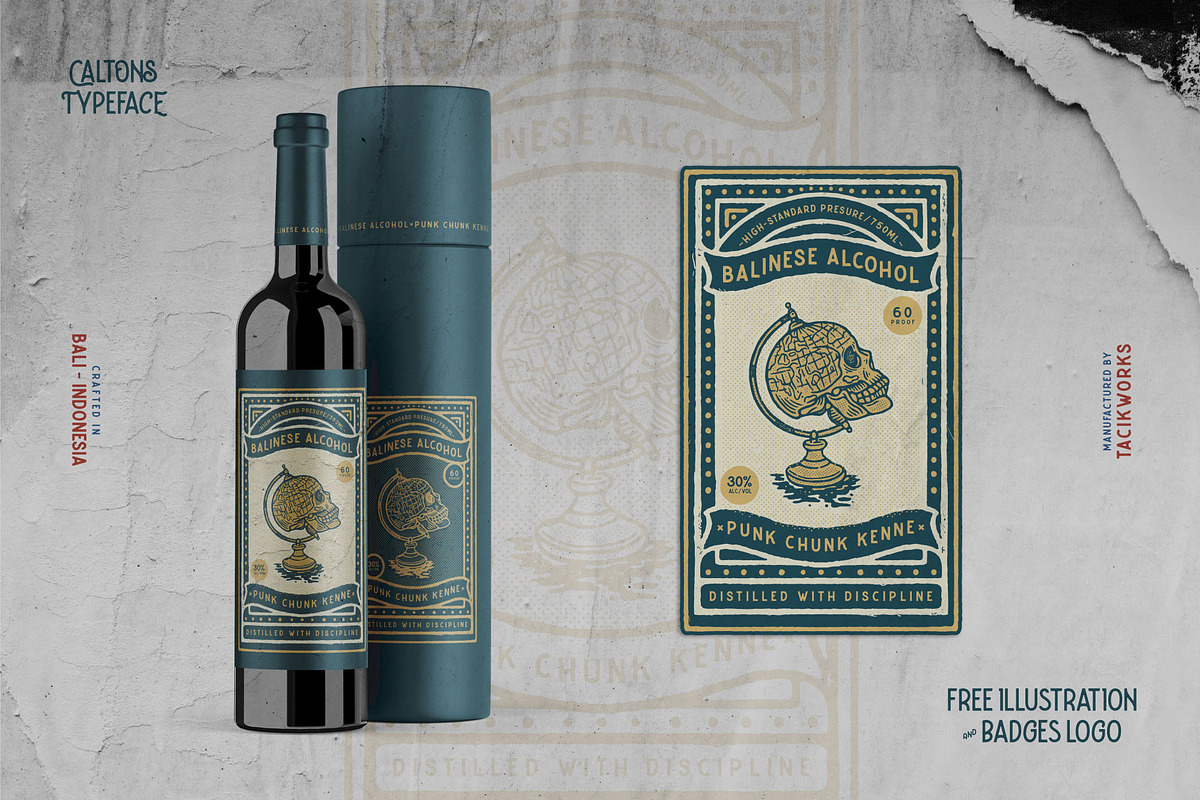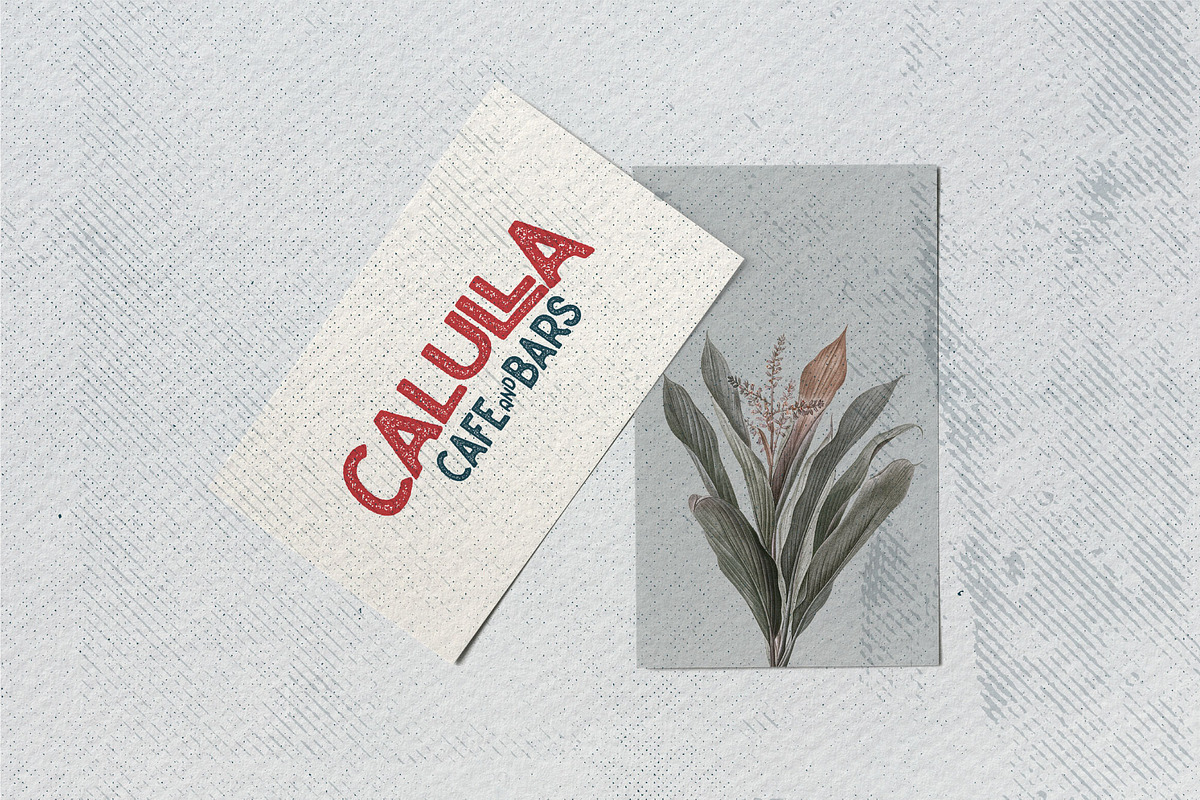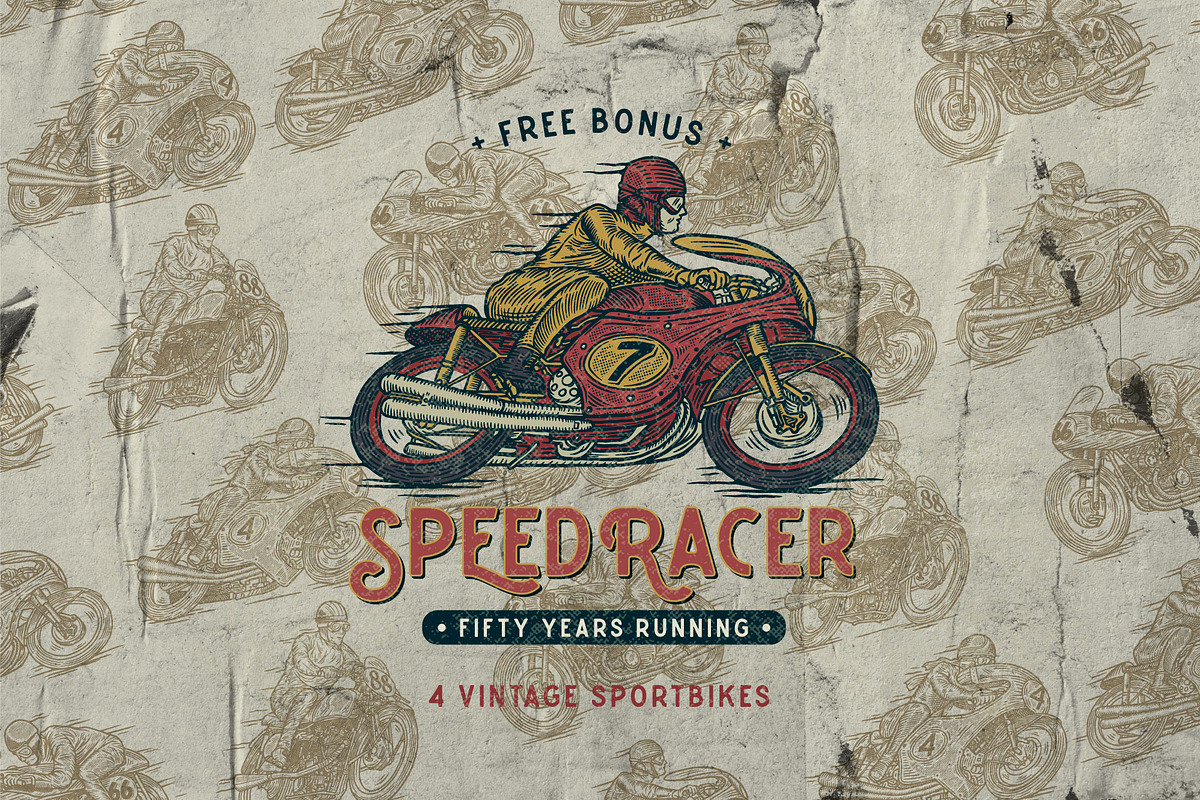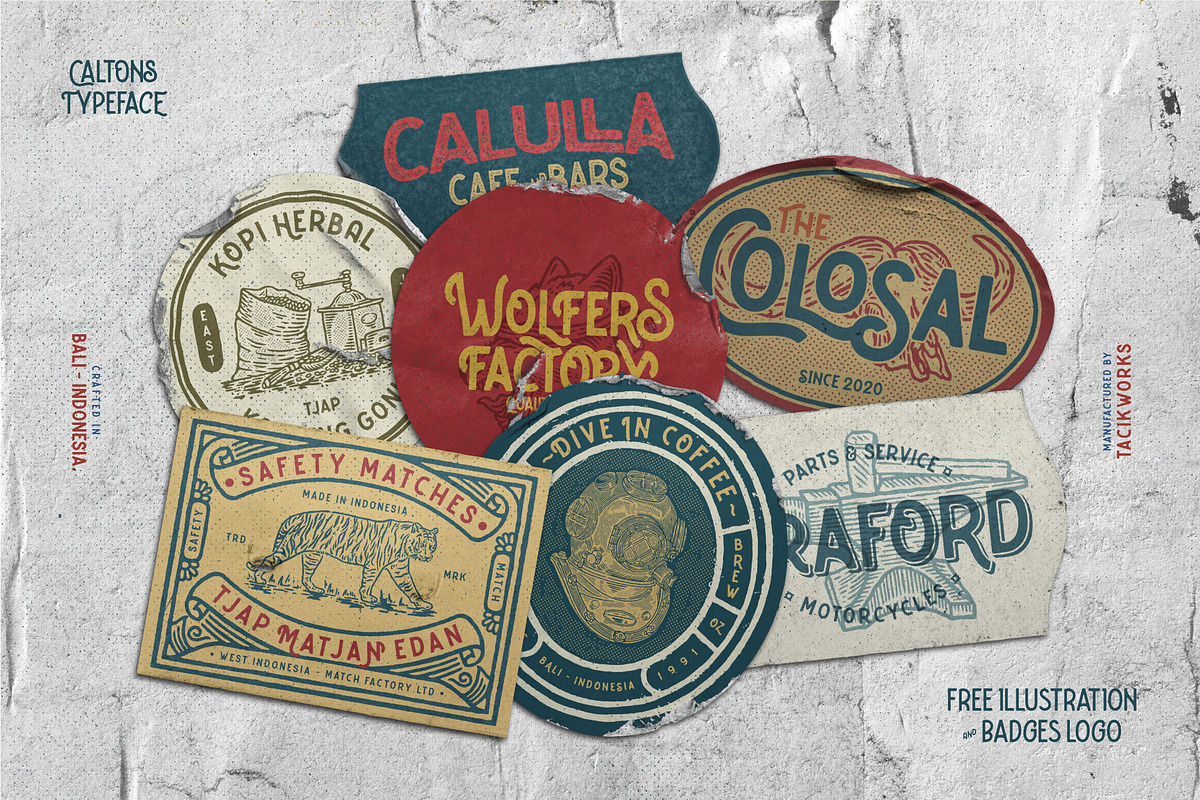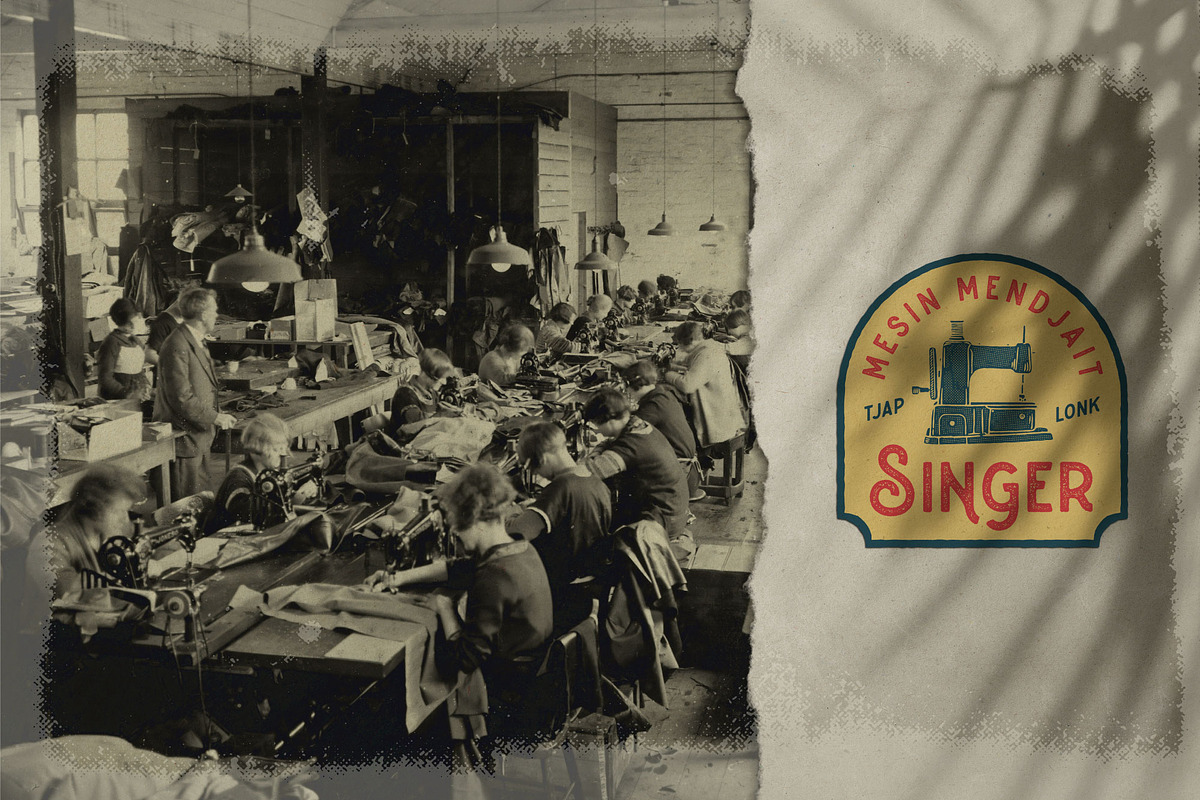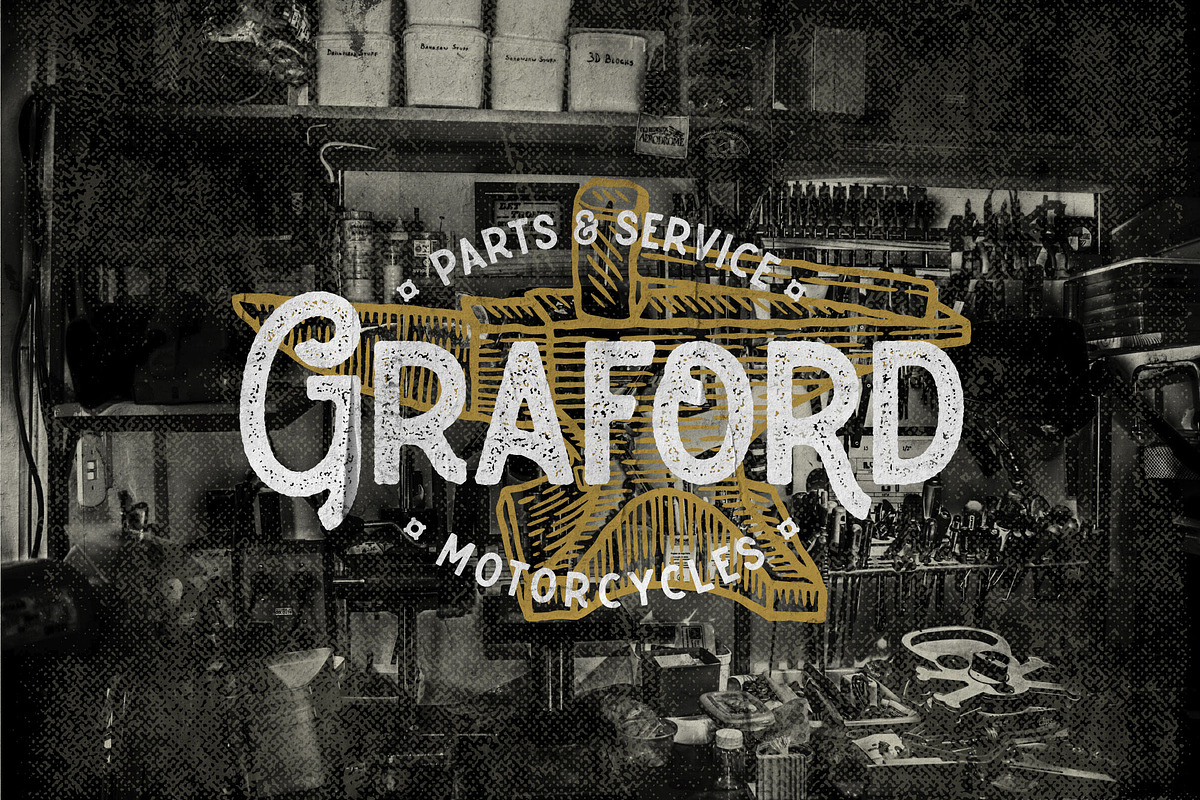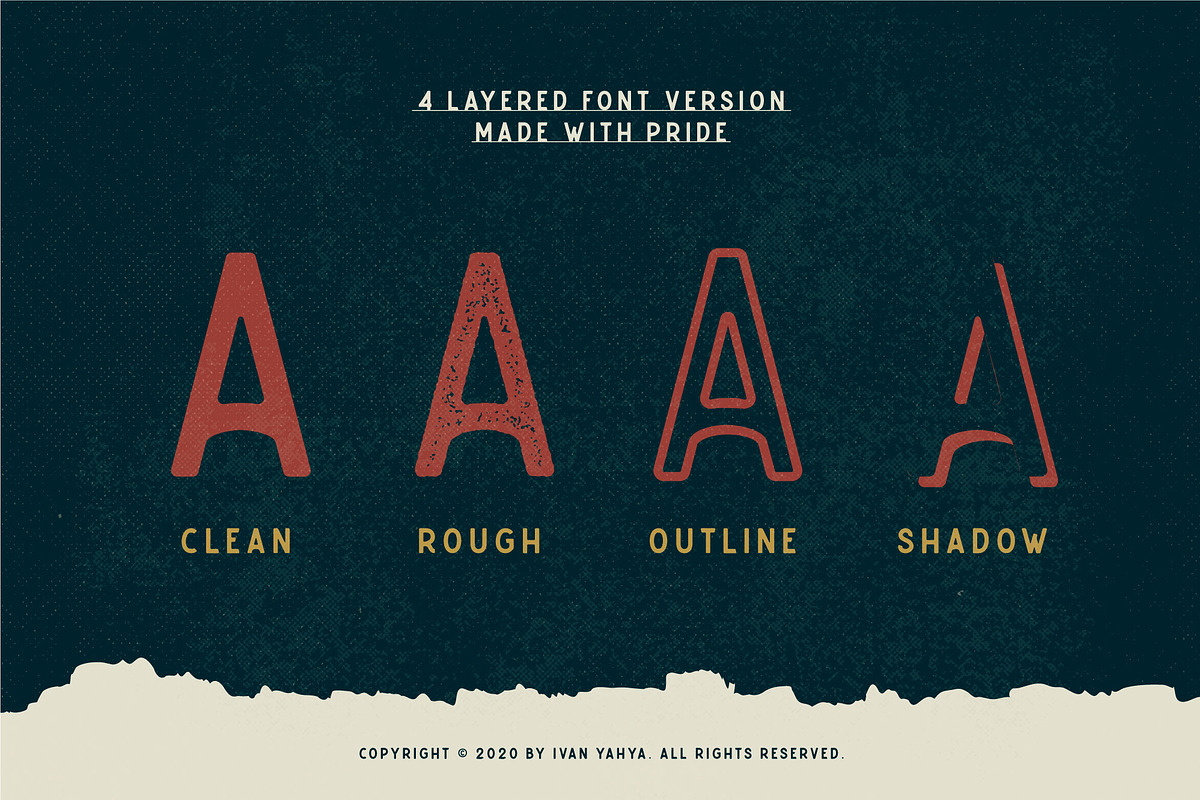
Caltons Typeface With Extra Bonus
Proudly present Caltons Typeface. This font is inspired by vintage designs with clean and rough lines. Make the classic impression of this font stand out more. This font has approximately 600 glyph characters including uppercase, lowercase, discretionary ligatures and standard ligatures alternatives. It is suitable for creating vintage designs such as logo posters, merchandise, clothing, brochures, business cards and others.
Stylistic Alternates & Ligatures
Multilingual Languages Supported
- Punctuations
- Stylistic Alternates & Ligatures
- Multilingual Languages Supported